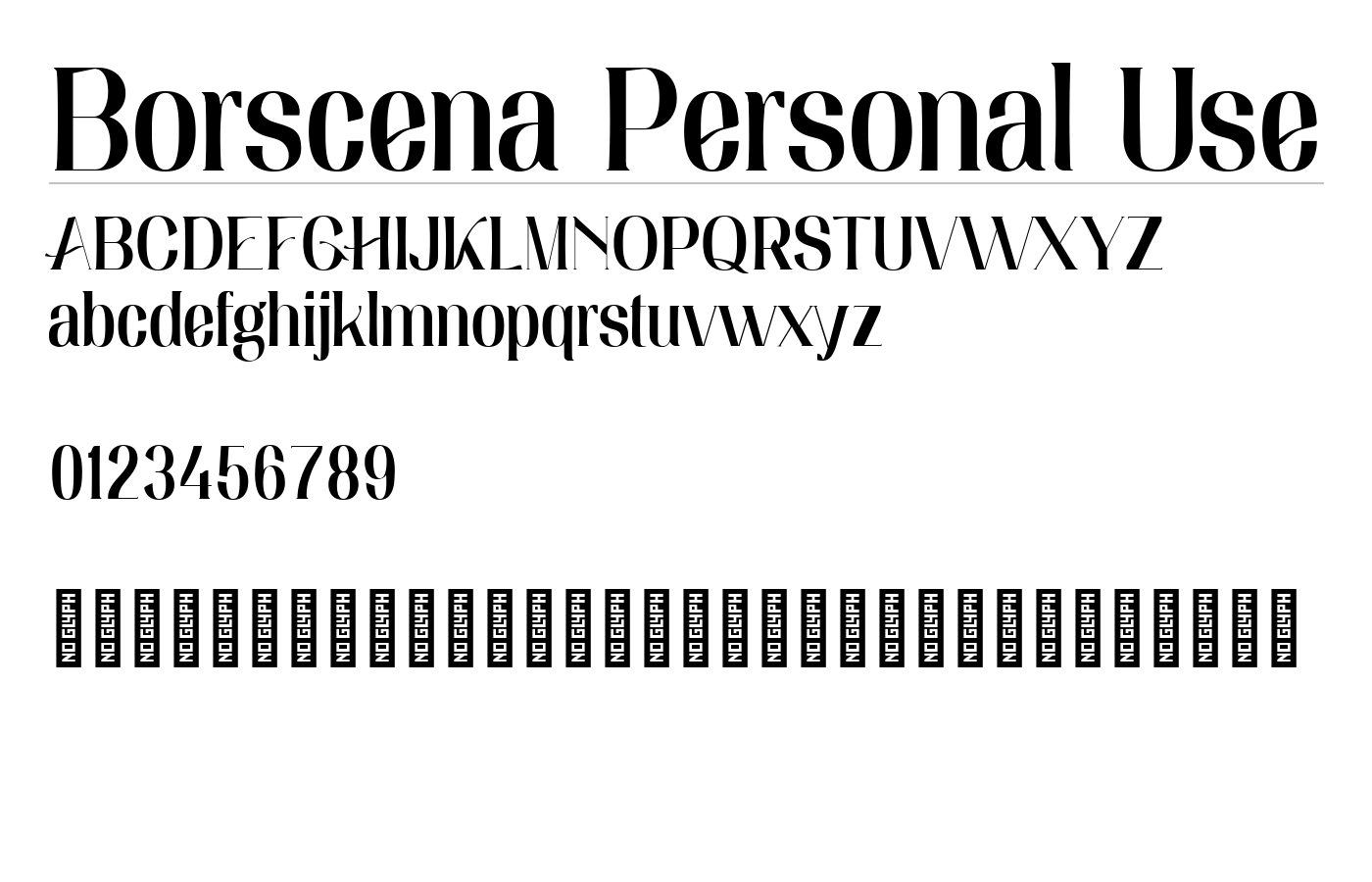
Borscena Personal Use is a stylish serif font with a tall, condensed structure and high stroke contrast that creates a refined and elegant appearance. Its sharp, bracketed serifs and unique letterforms convey a sophisticated, vintage-inspired feel, making it ideal for luxury branding, editorial headlines, and fashion packaging where a bold yet graceful statement is needed. This font works best in display contexts where its distinctive personality can shine.
Borscena Personal Use Font
About Borscena Personal Use Font